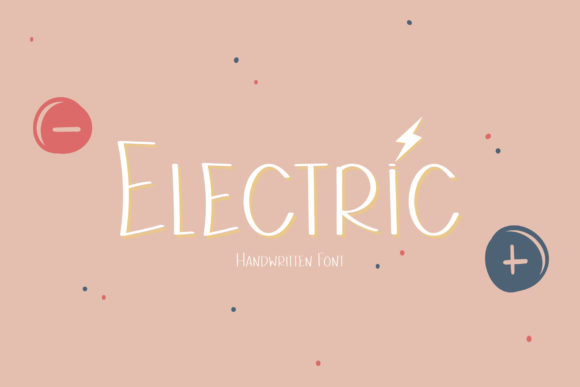
Introducing Electric Font: A Simple yet Powerful Handwritten Font
Are you a designer or crafter looking for a font that can elevate your creative projects? Look no further than Electric Font, a simple and neat handwritten font that’s perfect for a wide range of designs. With its natural and unique style, Electric Font is incredibly versatile and can be used in various contexts, from digital media to print materials.
The Characteristics of Electric Font
Electric Font is a handwritten font that’s characterized by its simplicity and elegance. Its natural, flowing lines give it a unique and organic feel that’s perfect for creating a personal touch in your designs. The font is clean and easy to read, making it suitable for body text, headings, and titles.
The Benefits of Using Electric Font
So, why choose Electric Font for your design projects? Here are just a few benefits of using this amazing font:
• Versatility: Electric Font is incredibly versatile and can be used in a wide range of designs, from modern and minimalist to vintage and rustic.
• Readability: The font is easy to read, even at small sizes, making it perfect for body text and other applications where legibility is key.
• Uniqueness: Electric Font has a unique and distinctive style that sets it apart from more traditional fonts.
• Easy to use: Electric Font is a simple font to use, even for those with limited design experience.
Design Ideas Using Electric Font
So, how can you use Electric Font in your design projects? Here are a few ideas to get you started:
• Branding and logos: Electric Font is perfect for creating custom logos and branding materials that need a personal touch.
• Invitations and cards: The font’s natural, handwritten style makes it ideal for creating invitations, greeting cards, and other paper crafts.
• Digital media: Electric Font can be used in digital media, such as social media graphics, blog posts, and website headers.
• Print materials: The font is also suitable for print materials, such as brochures, flyers, and posters.
Tips for Getting the Most Out of Electric Font
To get the most out of Electric Font, here are a few tips to keep in mind:
• Experiment with different colors: Electric Font looks great in a variety of colors, so don’t be afraid to experiment and find the perfect hue for your design.
• Play with font sizes: The font’s versatility means it can be used at a range of sizes, from small body text to large headings.
• Combine with other fonts: Electric Font can be paired with other fonts to create a unique and interesting design.
In conclusion, Electric Font is a simple yet powerful handwritten font that’s perfect for designers and crafters looking to add a personal touch to their projects. Its natural and unique style makes it incredibly versatile, and its readability and ease of use make it a great choice for a wide range of applications. So why not give Electric Font a try and see the difference it can make in your designs?
Electric Font: The Perfect Choice for Designers and Crafters
In today’s digital age, having access to high-quality fonts is more important than ever. Electric Font is a great choice for designers and crafters who want to add a personal touch to their projects. With its simplicity, elegance, and versatility, Electric Font is sure to become a favorite in your design toolkit.